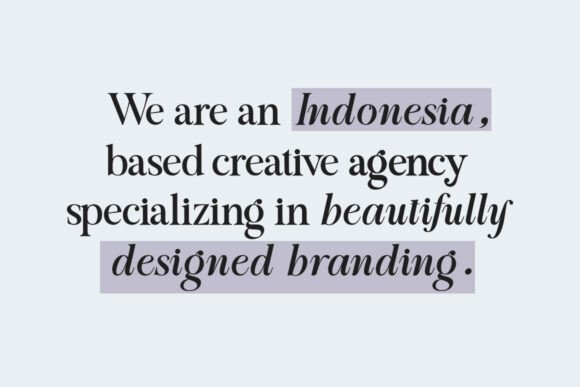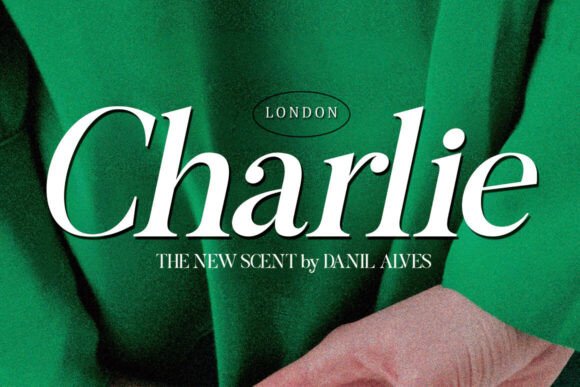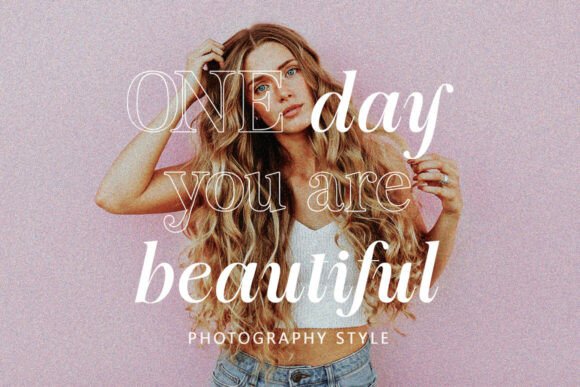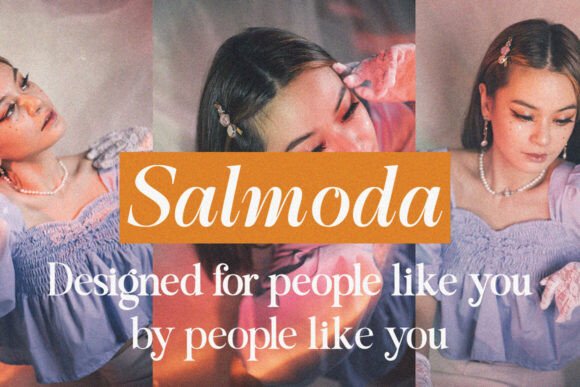
Master Serif Font
Introducing Master Serif, a stunning serif family that wants to be the center of attention. Use this classic and refined serif for large-scale headlines, big text moments, or compelling quotes.
Master Serif is a 9-weight typeface that was created to be the center of attention. With stunning contrast, organic curves, and sharp italics, Master Serif is a phenomenal choice for any project, whether focused on luxury branding or typefaces. This font is perfect for many projects, for modern or even retro vintage designs, branding, logos, crafts, stickers, sublimation, wedding invitations, and more. This font is suitable for a variety of projects such as logos, branding, magazines, signage, fashion, and many more.